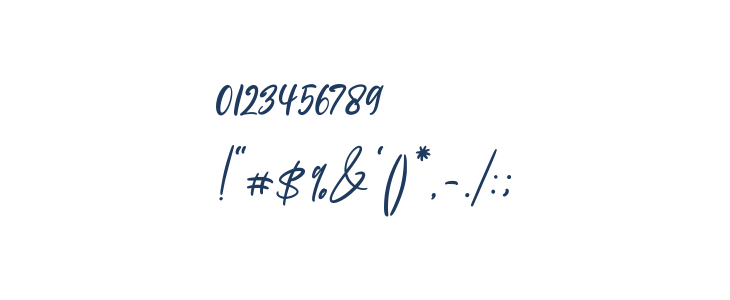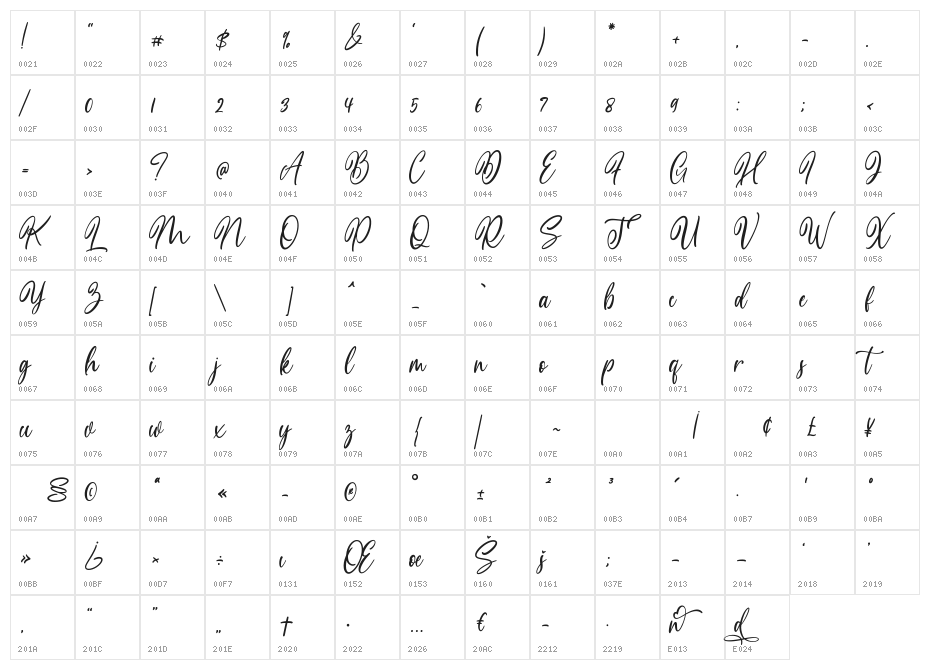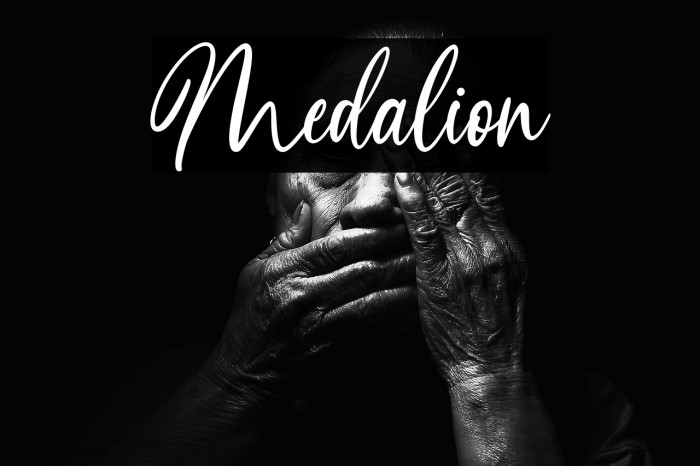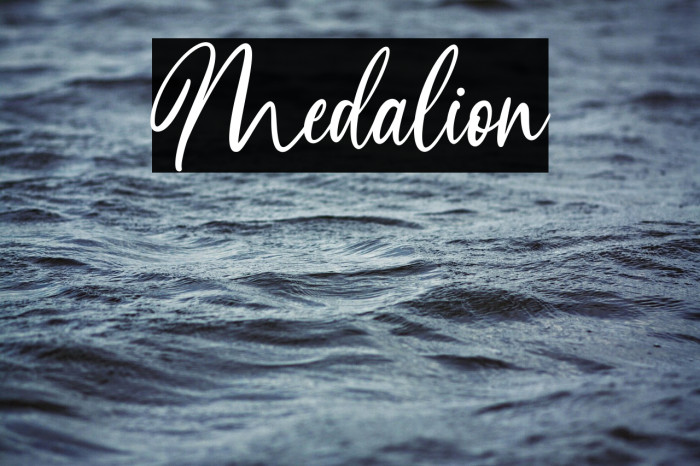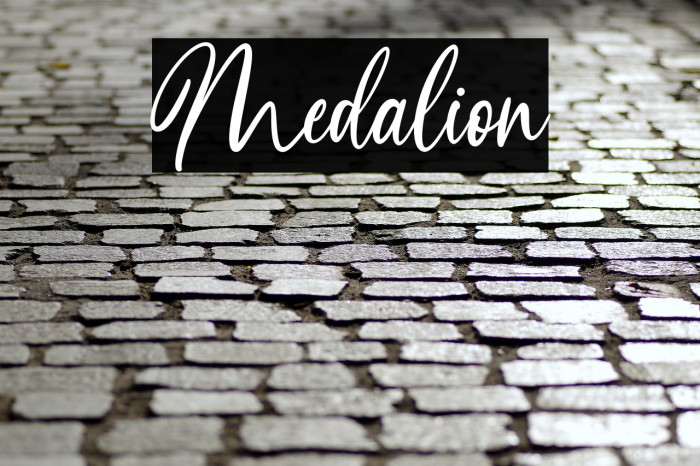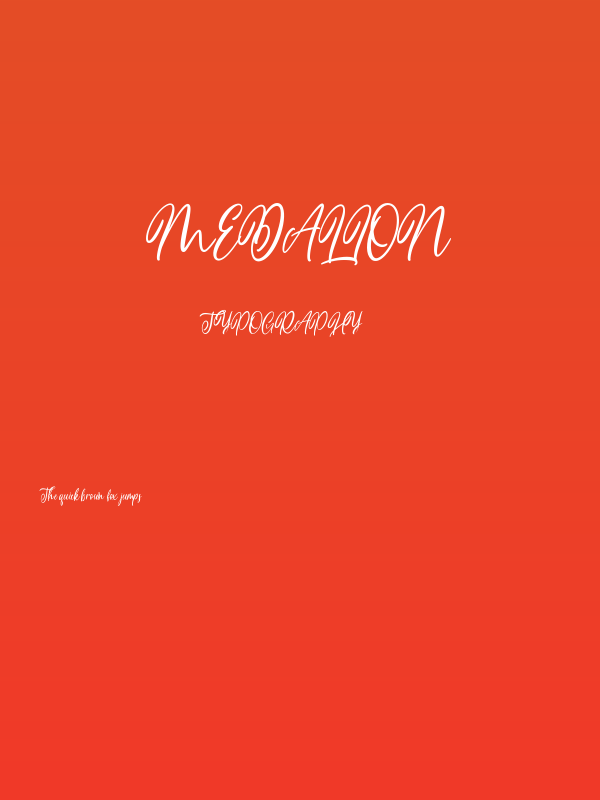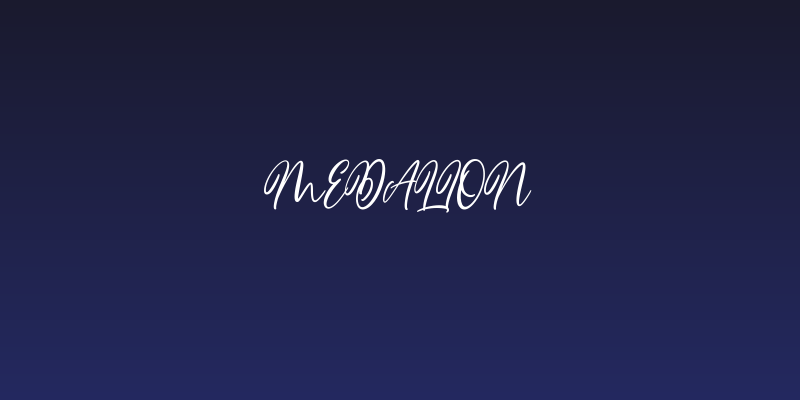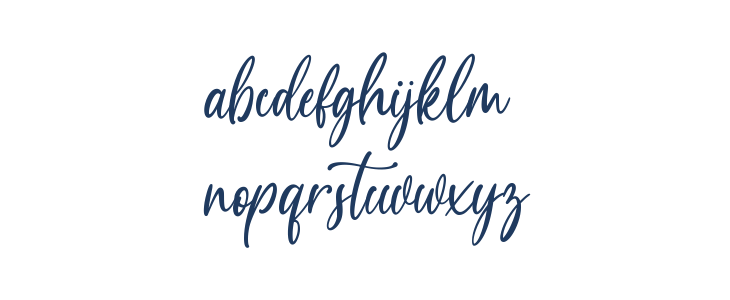
Medalion Font
Medalion Description
This font features an elegant and flowing script style, characterized by its smooth, cursive letterforms that convey a sense of sophistication and grace. The uppercase letters are particularly ornate, with sweeping curves and flourishes that add a decorative touch. The lowercase letters maintain a consistent flow, enhancing readability while retaining the font's artistic flair. Numbers and special characters are designed to match the overall aesthetic, ensuring a cohesive look across all text. The font's design is well-suited for projects that require a personal, handwritten feel, making it ideal for invitations, branding, and creative designs.
| Use Case | Logos, Invitations, Artistic designs |
| Proposed Projects | Ideal for wedding invitations, branding, greeting cards, and artistic projects requiring a personal touch. |